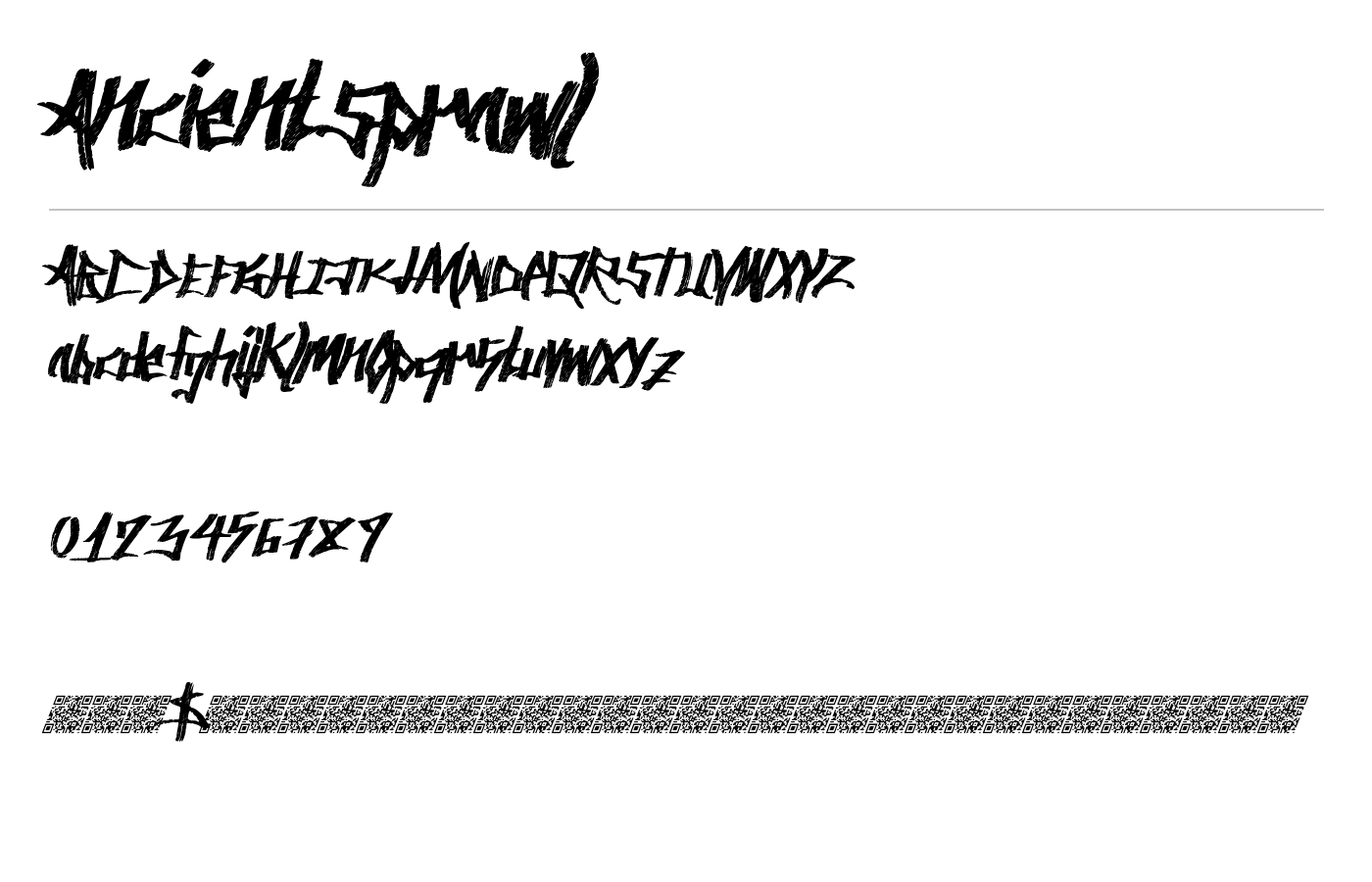
AncientSprawl is a bold, hand-drawn brush script font with an energetic and chaotic feel, characterized by sharp, irregular strokes and a rough texture. Its tall, narrow letterforms and dynamic rhythm give it an edgy, urban vibe, making it perfect for designs that want to convey raw creativity and rebellious spirit. This font works best for eye-catching posters, streetwear branding, or any project seeking a gritty, expressive look.
AncientSprawl Font
About AncientSprawl Font